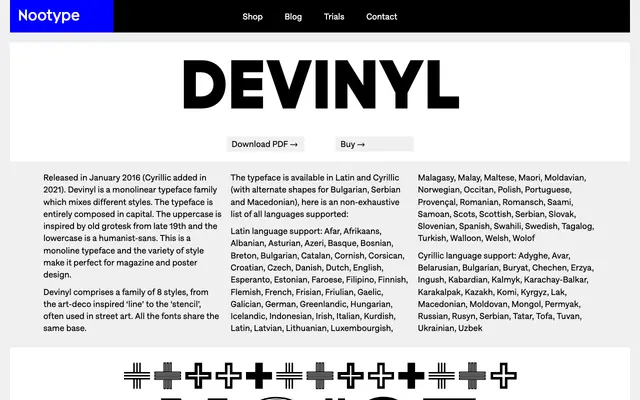
Devinyl
Nootype · 2016
An all-capitals monolinear family in eight stylistic variants, ranging from art-deco inline to street-art stencil, with Latin and Cyrillic coverage.
Released in 2016 with Cyrillic added in 2021, Devinyl draws its uppercase from late 19th-century grotesques and its lowercase principles from humanist sans, though the family is composed entirely in capitals. Eight styles share the same underlying skeleton while offering distinct treatments: Regular, Eclipse, Fold, Incise, Inline, Line, Stencil and Vinyl. The monolinear construction and stylistic breadth make it well-suited to poster and magazine work where visual contrast between variants is useful.
An all-capitals monolinear family mixing art-deco, grotesque, stencil and inline styles across eight variants; the stylistic variety and uppercase-only construction place it firmly in the display category.